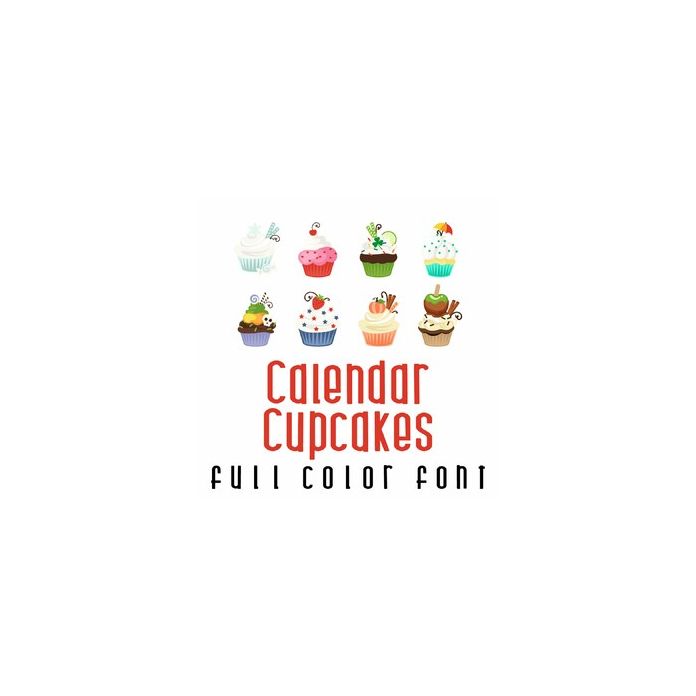
This adorable full-color doodlebat font features 26 cupcakes and months for any time of the year. Perfect for cards, crafts, gifts, decor, scrapbook pages, planner stickers, and more!